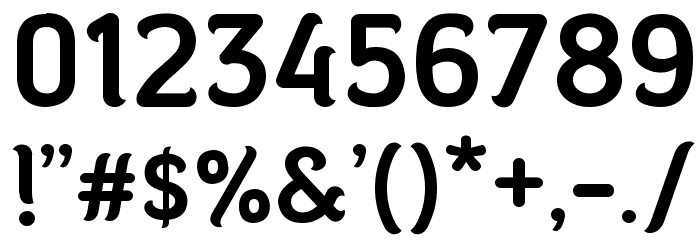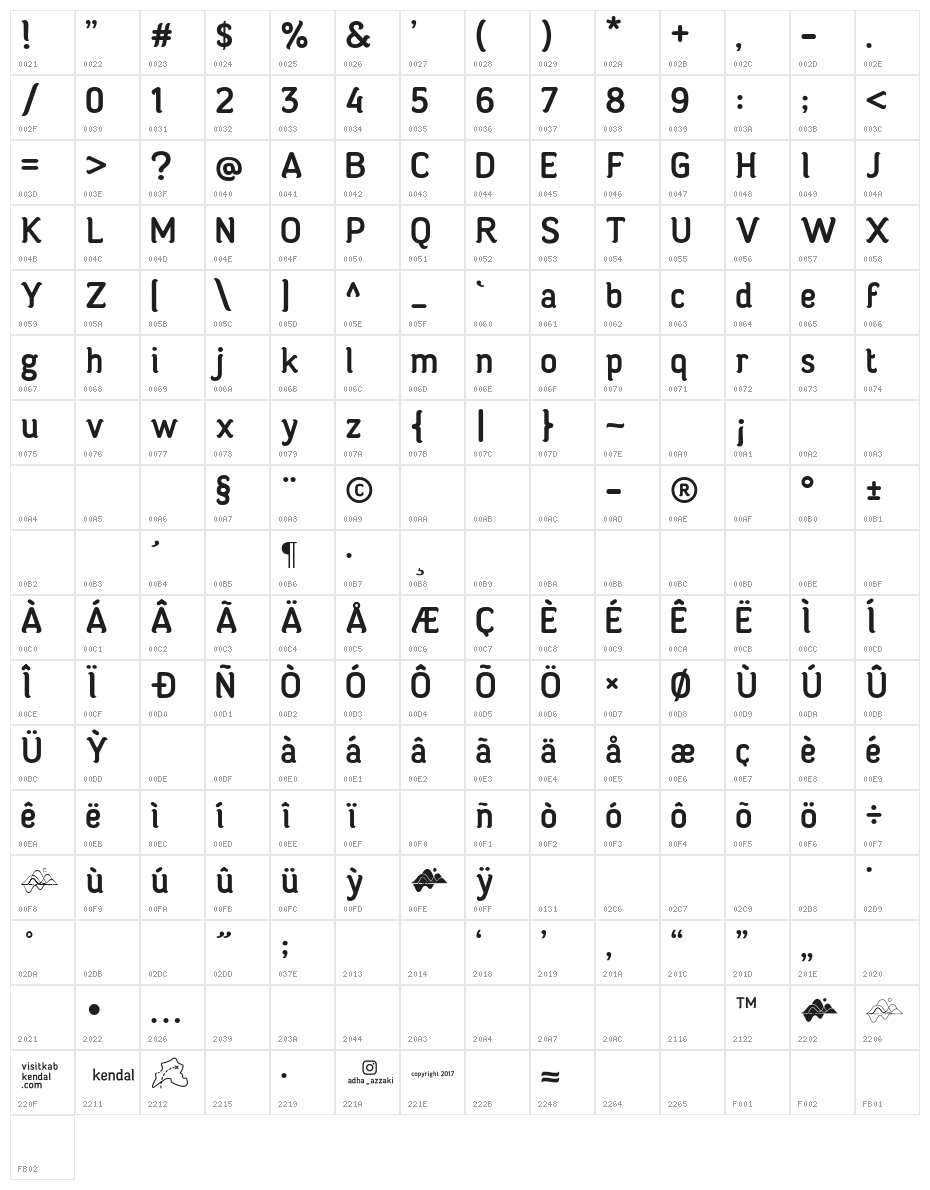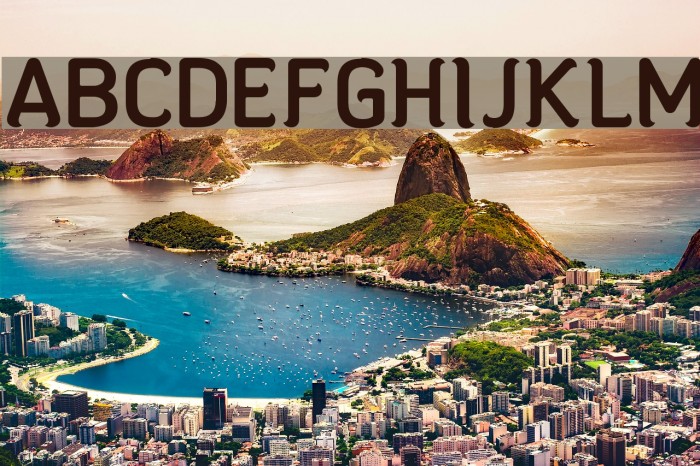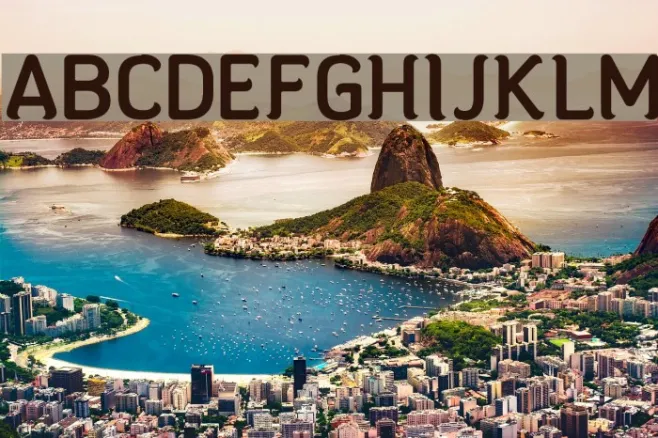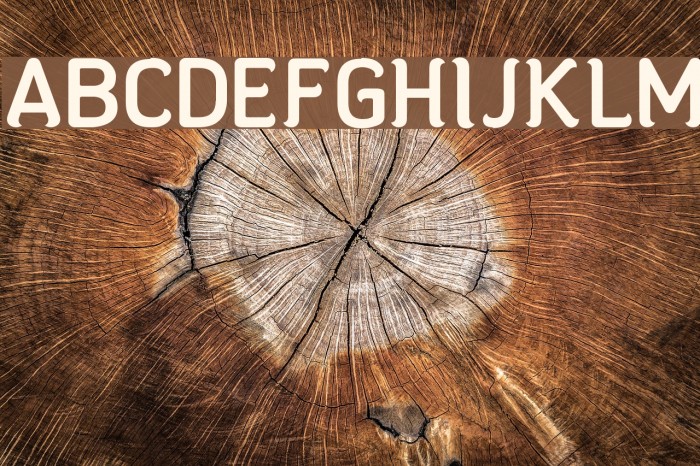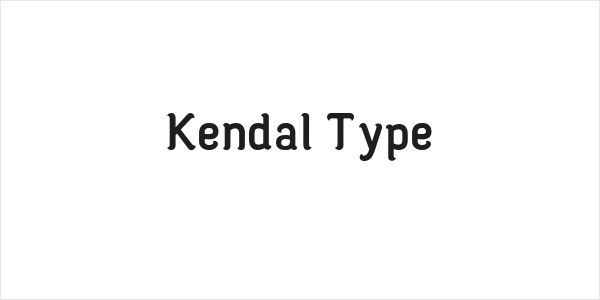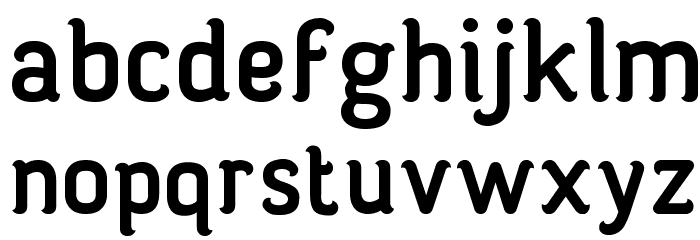
Kendal Type Font
Kendal Type Description
This font features a bold and rounded style with a modern touch. The characters are well-defined with a consistent stroke width, giving it a clean and approachable appearance. The uppercase letters are slightly taller than the lowercase, maintaining a balanced proportion. The numbers are clear and legible, making them suitable for various applications. Special characters are designed to match the overall aesthetic, ensuring uniformity across all symbols. The font's rounded edges and smooth curves contribute to its friendly and inviting look, making it versatile for both digital and print media.